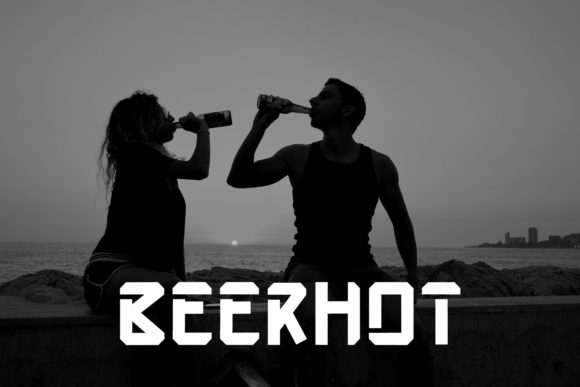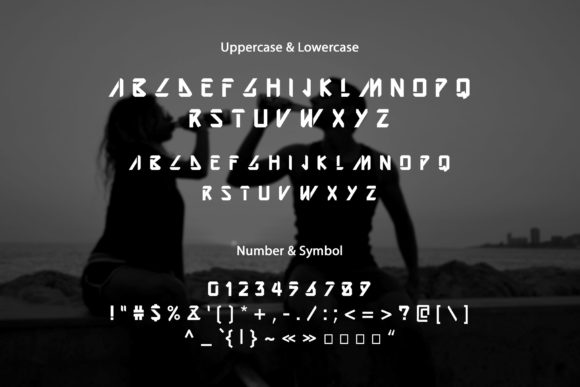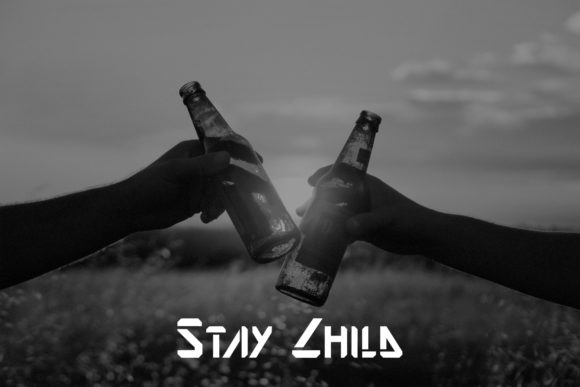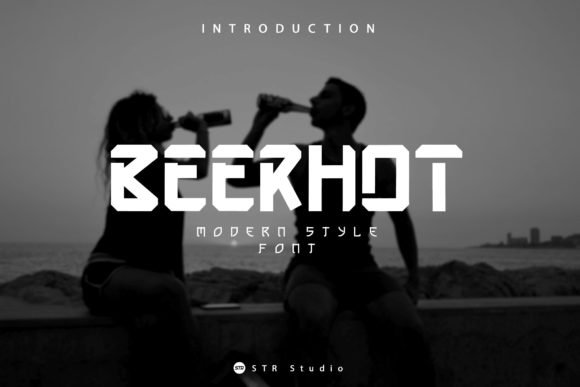
Introduction to Beerhot Font
Beerhot is a modern sans serif font suitable for branding materials, business cards, quotes, posters, and many more.
Add it to any of your creative projects, and they will capture everyone’s attention .
Key Features of Beerhot Font
Why Choose Beerhot Font?
Beerhot Font offers exceptional quality and versatility, making it a valuable addition to your design toolkit. Whether you’re creating for personal projects or commercial use, Beerhot Font delivers professional results.